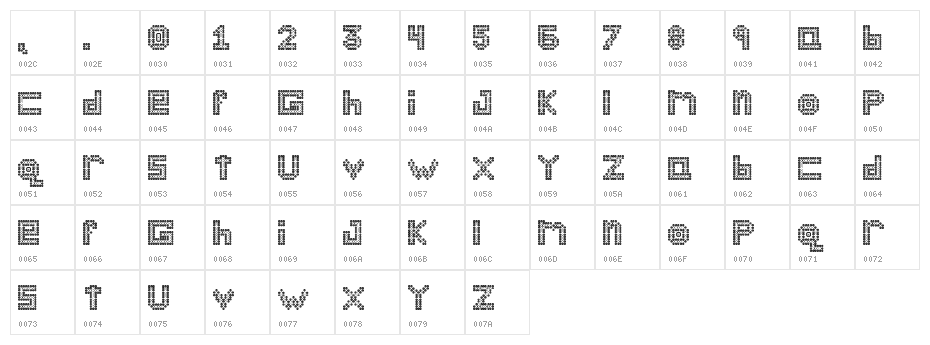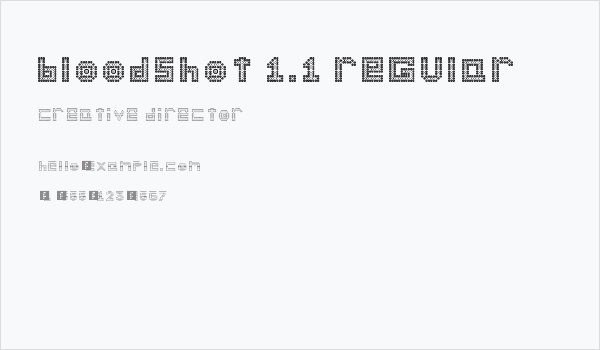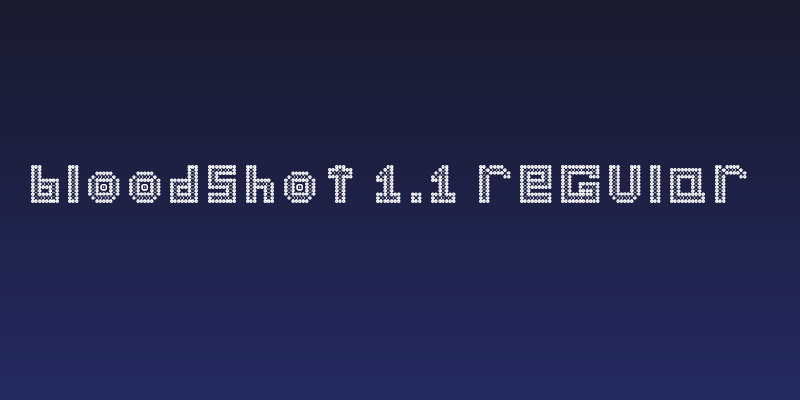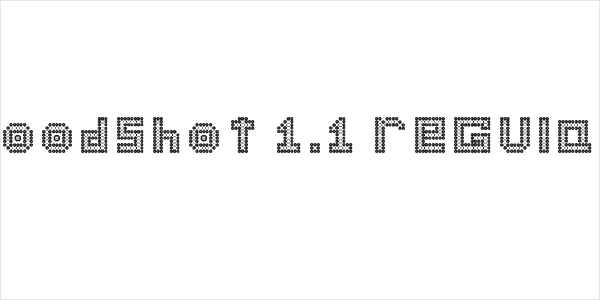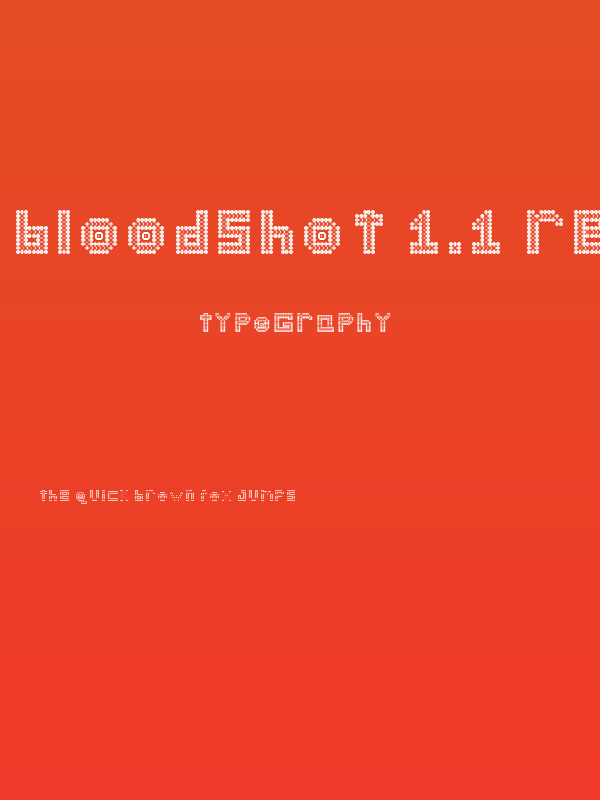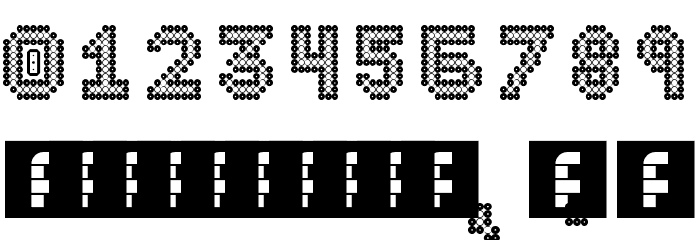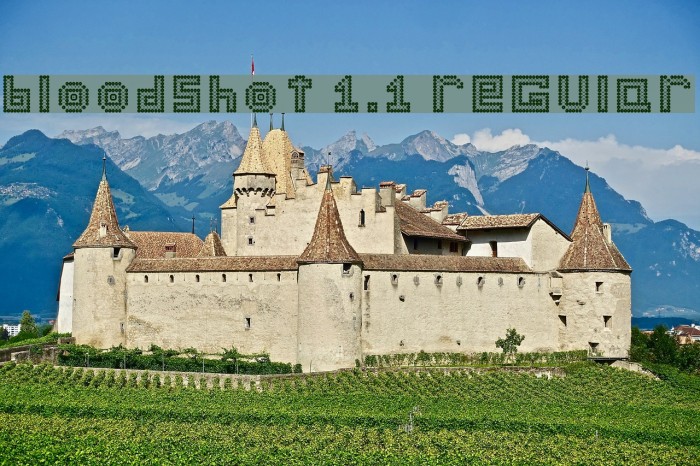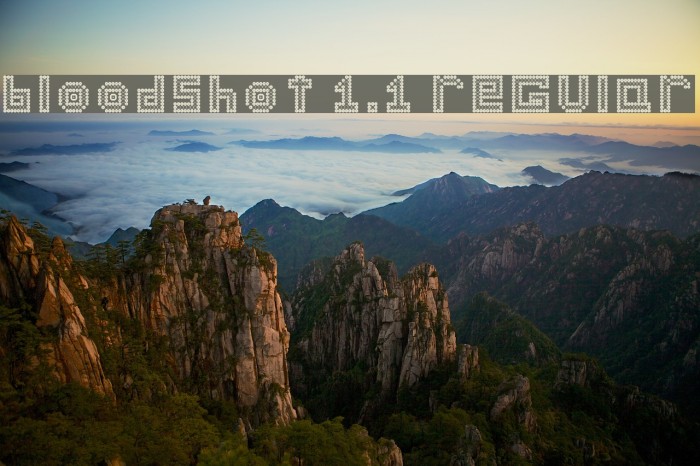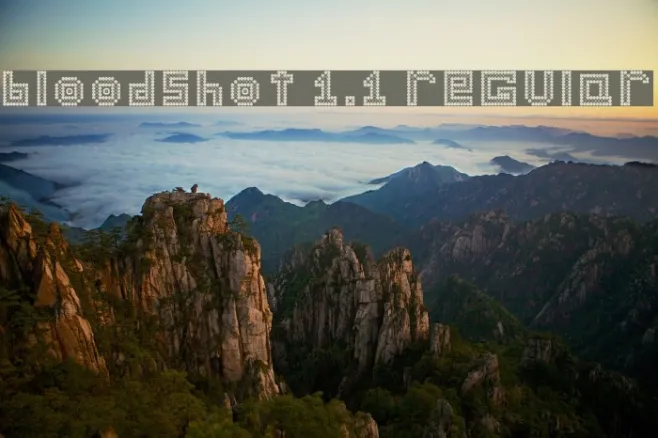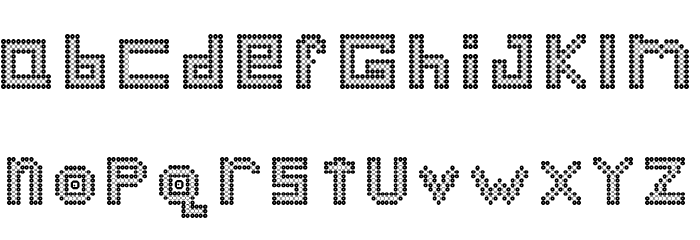
Bloodshot 1.1 Regular Font
Bloodshot 1.1 Regular Description
This font features a unique and playful design composed entirely of small, evenly spaced dots forming each character. The dots create a pixelated effect, giving the font a digital or retro video game aesthetic. The characters are uniformly structured, maintaining a consistent height and width, which enhances readability despite the unconventional style. The font includes both uppercase and lowercase letters, numbers, and a selection of special characters. Its distinct appearance makes it suitable for creative projects that require a modern and eye-catching typeface.
| Proposed Projects | Ideal for digital art, retro-themed designs, video game graphics, and creative posters. |